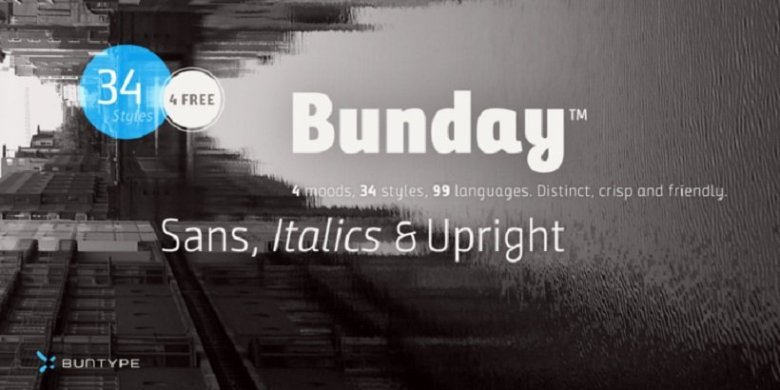
Bunday Sans Font Family
You are required to design a set of fonts in your new project, I want to introduce to you a new font family. Introducing Bunday Sans Font Family! Bunday Sans designed by Buntype. Buntypes new Bunday™ Sans Font Family consist of four main states with different moods: the crisp and distinctive sans, the cute script styled upright and the matching italics.
All states of Bunday™ Sans share the same contemporary, clear and open base forms and create a space-saving and pretty homogeneous text colour. Despite the fact, that the overall width is space-saving or narrow, Bunday™ Sans offers a good legibility. The font was manually hinted and contains extensive handcrafted kerning tables to ensure perfect appearance in all media.